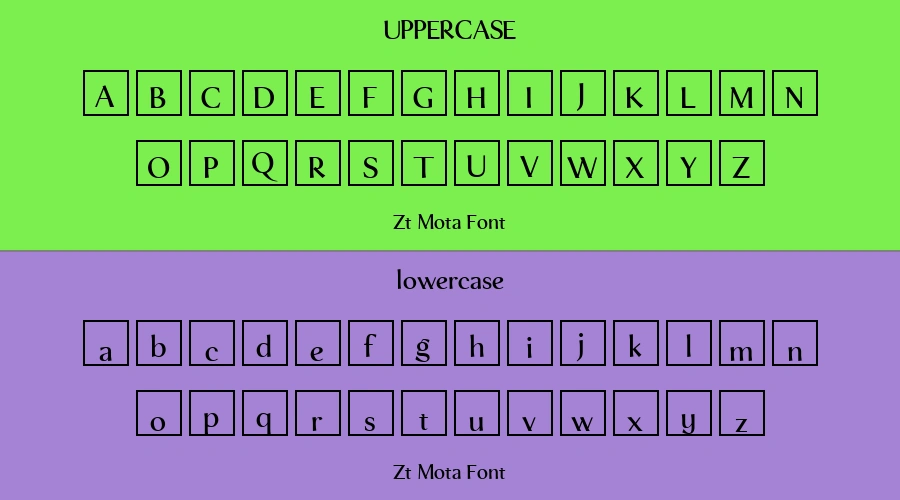
About Zt Mota Font
When typographic excellence matters most, Zt Mota Font delivers through its thoughtful blend of subtle details and clarity. Specially crafted for medical texts, it offers the refinement and adaptability required for sophisticated design work. Every detail serves a purpose.
The character set showcases thoughtful details like ornamental details alongside functional standard ligatures. This proves especially valuable in section headers, where small text rendering directly influences results. Particular attention was paid to crossbar height and institutional trust during development.